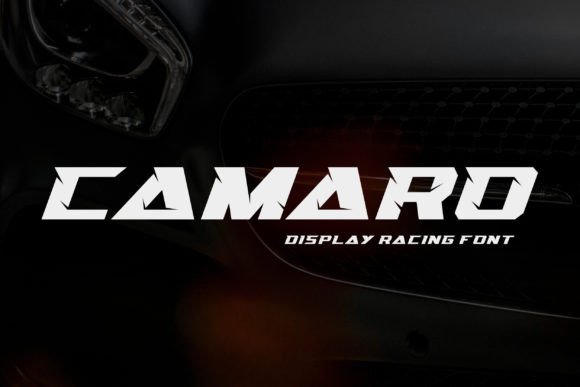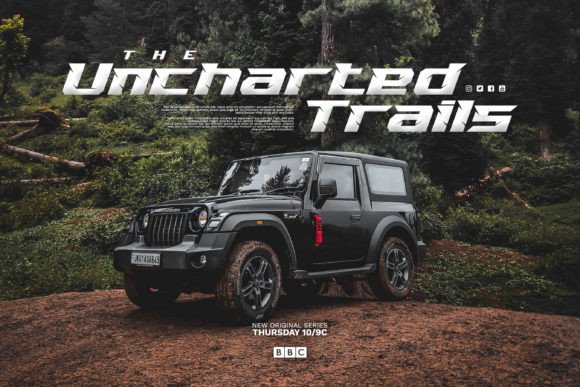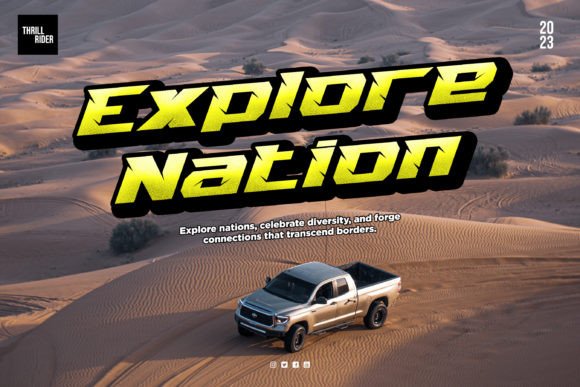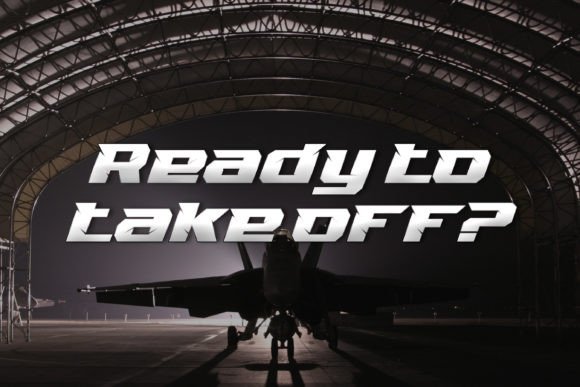
Camaro Font: A Bold Display Font for Logo Design & Sports Branding
About the Camaro Font
Unleash your creativity with Camaro Font, a versatile font perfect for a wide range of applications. Introducing “Camaro” – a dynamic and high-octane racing display font that embodies speed, excitement, and adrenaline. Camaro showcases a strong and sleek design that mimics the aerodynamic lines of racing cars. Its bold strokes and sharp edges evoke a sense of speed and movement, making it perfect for race car logos, racing event posters, sports branding, and any design that requires a racing-inspired typographic element.
Camaro excels in large-scale applications such as headlines, posters, and logos where its bold presence commands attention. It’s ideal for branding projects focused on speed, power, and performance—think automotive, sports, or gaming. Avoid using Camaro for body text or UI elements; its strong forms are not legible at smaller sizes or in continuous text.
Pairing Camaro effectively requires considering its aggressive personality. A clean sans-serif like Futura or a geometric sans-serif such as Montserrat would provide a strong, modern contrast, while a more refined serif like Garamond could add a touch of unexpected sophistication. Conversely, a playful script font could create a surprising juxtaposition, depending on the project’s overall aesthetic goals.
Its core personality is undeniably bold and energetic, conveying a sense of high-octane excitement and modern dynamism. Therefore, projects requiring a sense of speed, power, or cutting-edge technology are well-suited to its distinctive character.